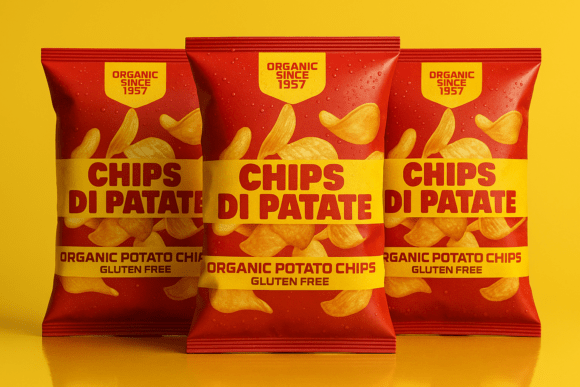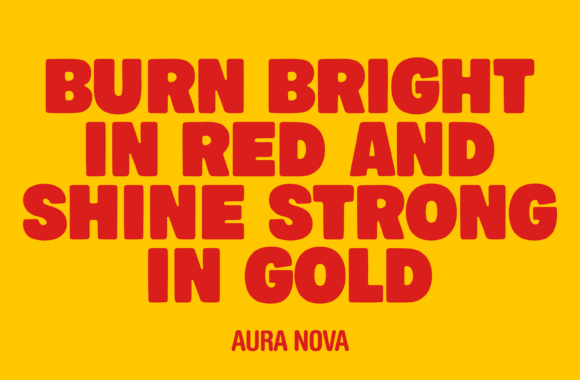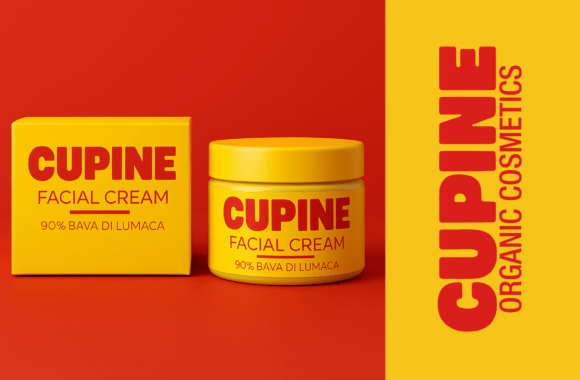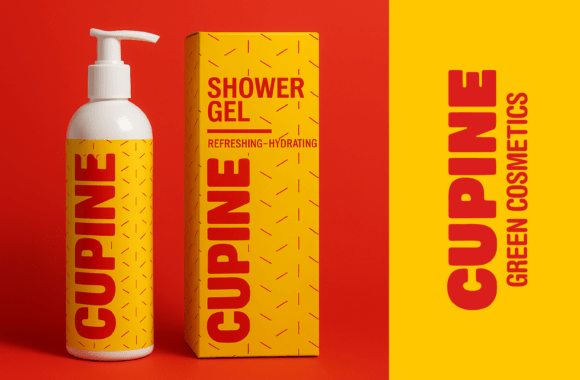
Cupine Font
CUPINE is a thick, heavy, ultra-chunky sans-serif display font built to make every design impossible to ignore. With its rounded edges, bold curves, and friendly, high-impact personality, CUPINE is perfect for standout logos, packaging, posters, ads, apparel, social graphics, and strong branding.
This font delivers instant visual power — ideal for retro vibes, playful designs, sports labels, modern bold branding, and anything that needs BIG energy. Clean, smooth curves make CUPINE perfect for both print and digital projects.
If you need a font that shouts, pops, and takes up space, CUPINE is your new favorite.